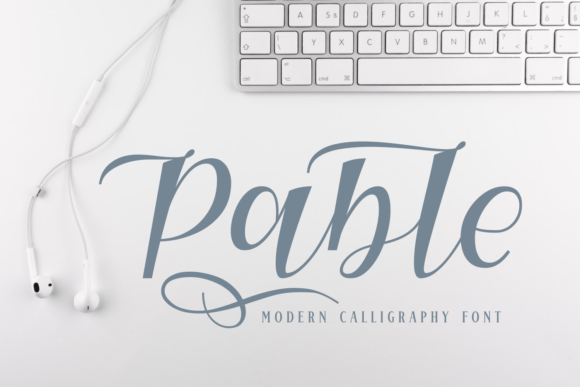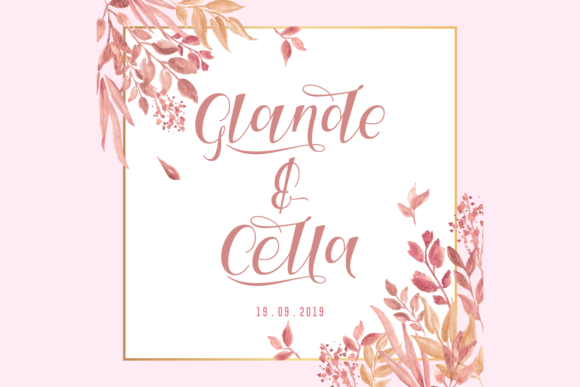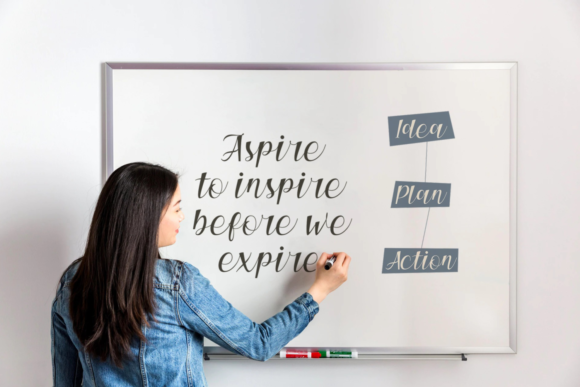
Pable Font
About Pable Font
The Pable is a modern calligraphy font. It includes amazing alternates which can be used to add an elegant, feminine, yet striking touch to your designs.